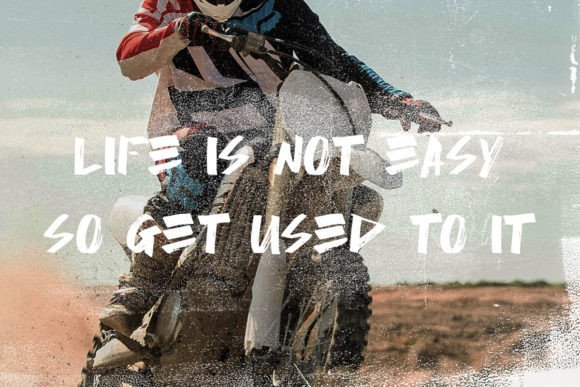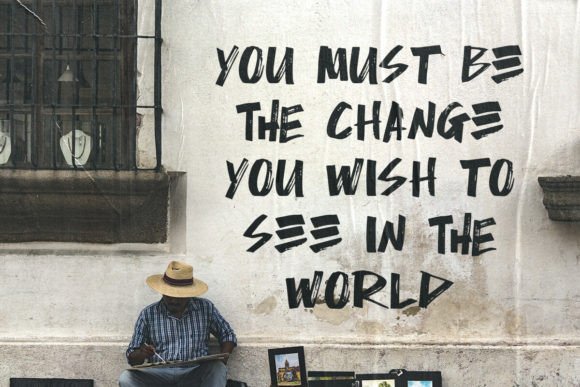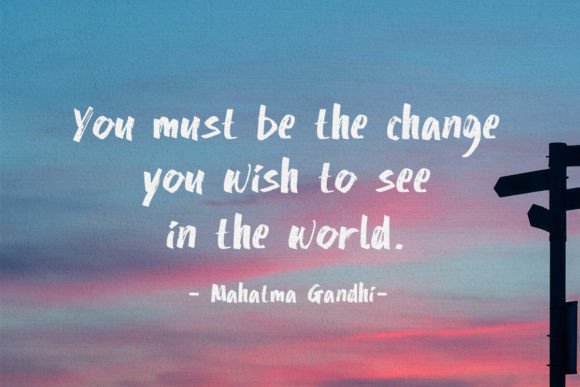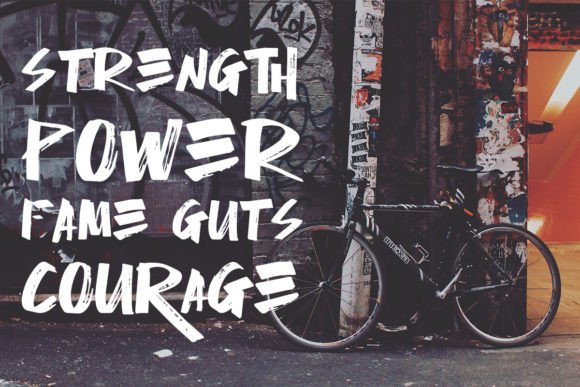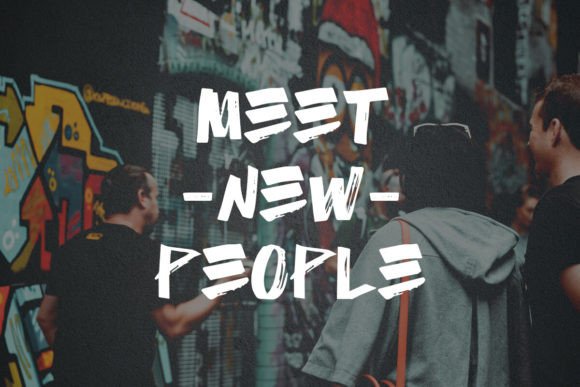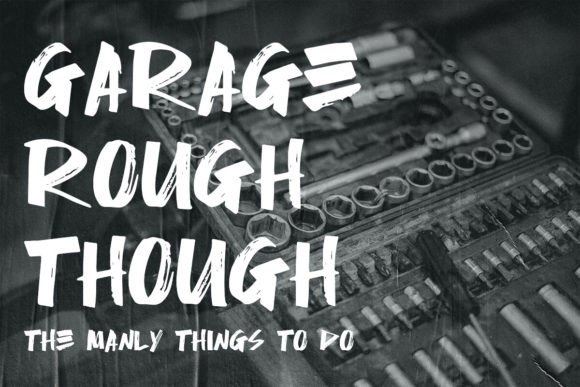
Introduction to Belmanthor Font
Belmanthor is an urban street marker and brush display font, with a bold style.
This font is perfect for logos, advertising, branding, urban-style posters, social media graphics, invitations, header text, album covers, packaging, product designs, merchandise and so much more .